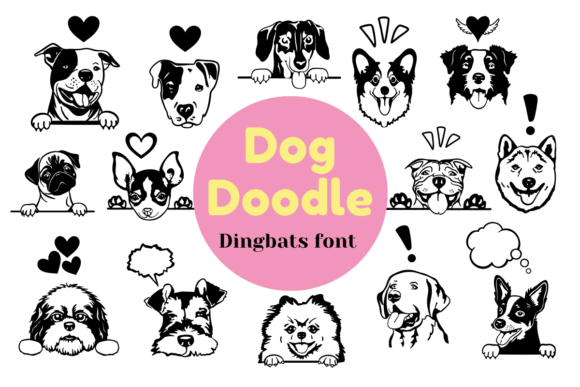
Dog Doodle Font
About the Dog Doodle Font
Welcome to the world of Dog Doodle Font, a typeface that will inspire your next great project. Dog Doodle is a dingbats font with a canine style. This font can enhance your creative projects such as wedding invitations, DIY, crafts, decorations, logos, and many other creative ideas.
Dog Doodle’s playful, hand-drawn aesthetic makes it ideal for projects requiring a friendly, approachable feel. It excels in logos, short headlines, and playful branding for pet-related businesses, children’s products, or craft projects. Use it sparingly in packaging design, focusing on accents rather than large blocks of text. Avoid using it for body copy or UI elements; its informal nature is unsuitable for extended reading.
Pairing Dog Doodle effectively requires considering its lighthearted energy. A clean sans-serif like Open Sans or Lato provides a strong contrast, balancing the font’s whimsicality with readability. For a more sophisticated approach, consider pairing it with a classic serif such as Garamond or Playfair Display for a touch of elegance that complements its hand-drawn charm. Avoid pairing it with other highly decorative fonts, which might create visual clutter.
The font’s overall personality is undeniably cheerful and informal, projecting a sense of fun and approachability. This makes it well-suited for brands that wish to communicate warmth and approachability.